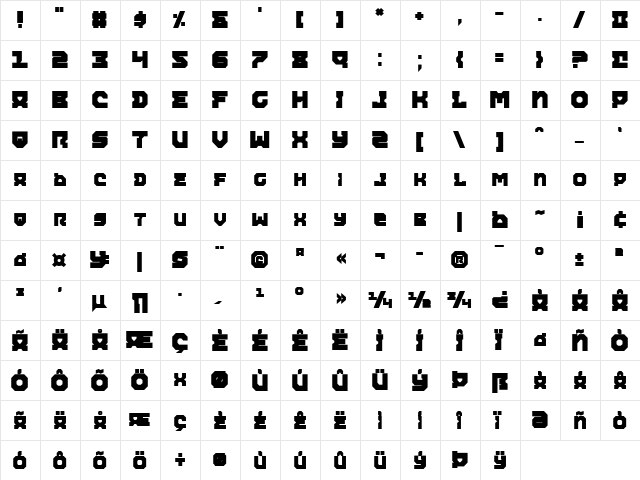
Airacobra Extra Bold Extra Bold
Design Context for Airacobra Extra Bold Typeface
Airacobra Extra Bold offers clean, dependable letterforms without strong stylistic allegiance, making it a practical choice for designers who need flexibility. Its bold stroke weight gives it real presence on the page.